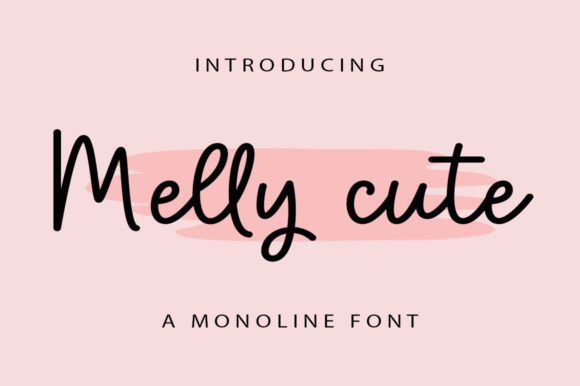
Unleash your creativity and embark on a visual journey with Melly Cute Font, a breathtaking script font family that encapsulates the essence of elegance and fluidity. Designed by the talented wahyu studio, Melly Cute is an exquisite font that effortlessly blends the charm of handwritten calligraphy with a modern, refreshing touch.
Immerse yourself in the world of Melly Cute, where your words dance gracefully across the page, leaving a trail of visual enchantment. This PUA-encoded font opens up a realm of possibilities, allowing you to effortlessly access a treasure trove of glyphs and swashes. Unleash your imagination and let your designs flourish with the endless creative combinations at your fingertips.
Whether you're a seasoned designer or just starting your creative journey, Melly Cute is your perfect companion. Its user-friendly nature makes it a breeze to work with, while its captivating beauty adds a touch of sophistication to any project. Create stunning logos that exude elegance, craft eye-catching social media graphics that demand attention, or design mesmerizing invitations that leave a lasting impression. The possibilities are endless, limited only by the boundaries of your imagination.
With Melly Cute Font, you'll experience the joy of seamless integration. It pairs harmoniously with a wide range of design styles, effortlessly elevating your projects to new heights. Its versatility shines through, whether you're working on branding materials, website designs, product packaging, or any other creative endeavor.
Step into the realm of Melly Cute and let your artistic vision soar. Embrace the beauty of handwritten calligraphy, infused with a contemporary twist. Discover a font that ignites your creativity, captivates your audience, and leaves an unforgettable mark on the world.